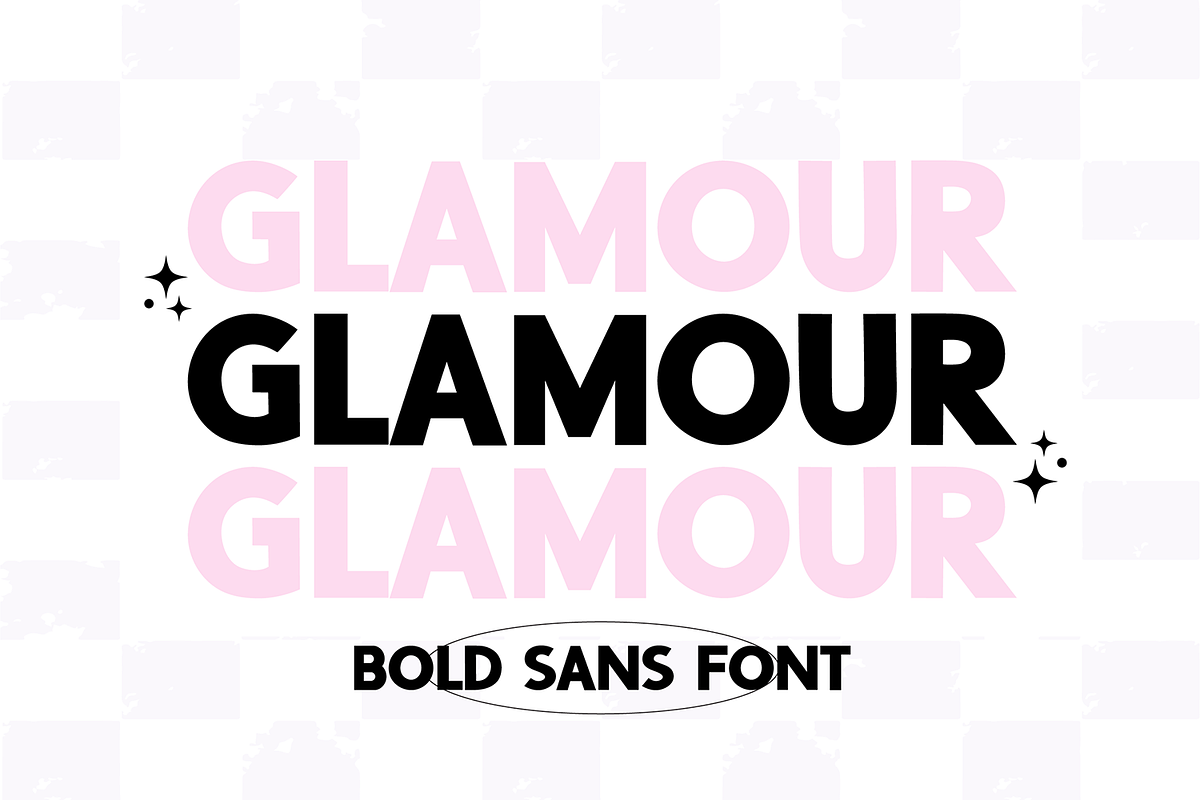
GLAMOUR Bold Classic Sans Serif Font Free Download
GLAMOUR Bold Classic Sans Serif Font Free Download is a striking typeface that combines timeless elegance with modern boldness. Designed with clean lines, balanced proportions, and a luxurious edge, GLAMOUR is perfect for fashion branding, editorial layouts, high-end product packaging, logos, headlines, and luxury advertising.
Its bold structure and minimalistic style give your text strong visual impact while maintaining a refined, classic feel. Whether used in print or digital design, GLAMOUR delivers sophistication and strength in every character.